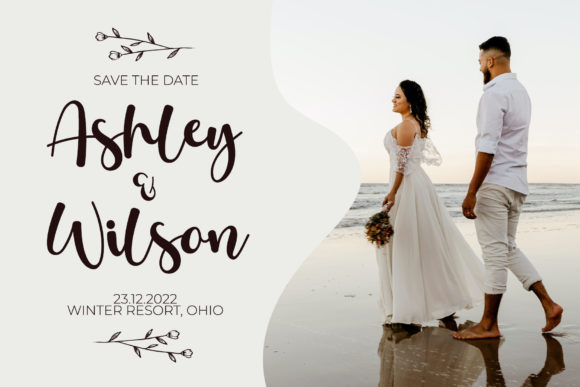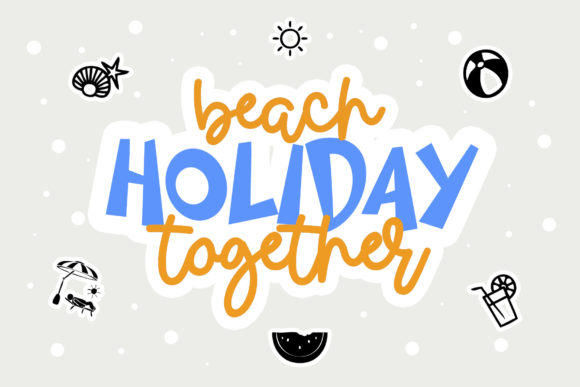
Milky Splash Font
db-ku.com - Script & Handwritten -- Milky Splash is bouncy, cute, and playful font trio. The font trio includes script, monoline, and display.